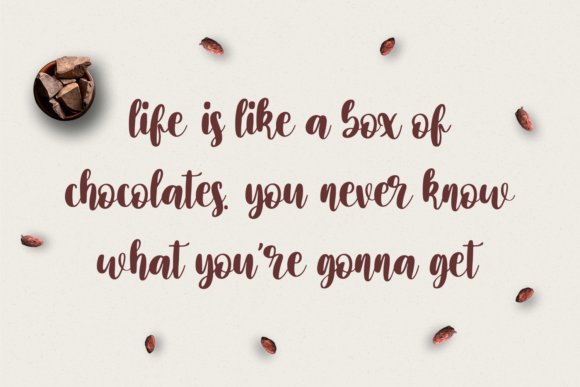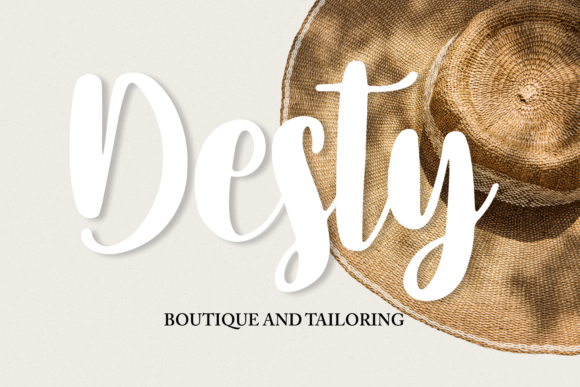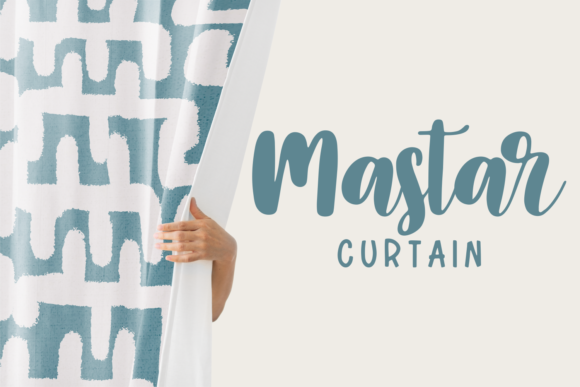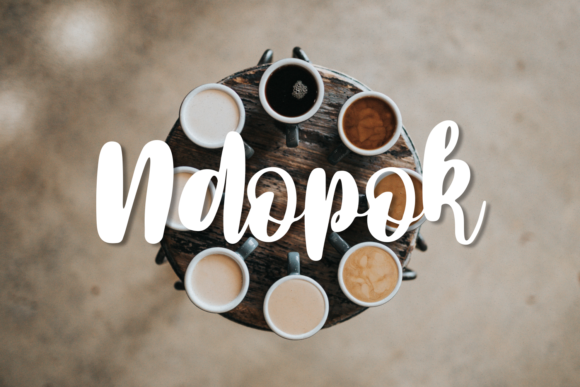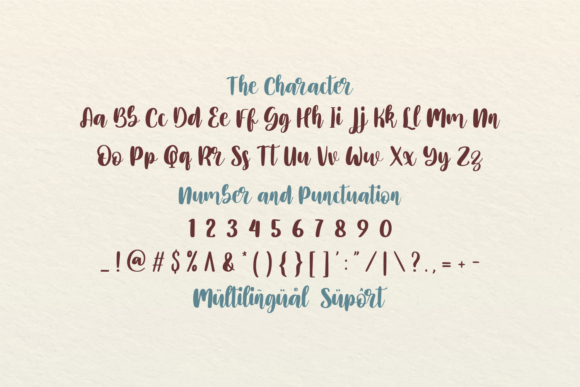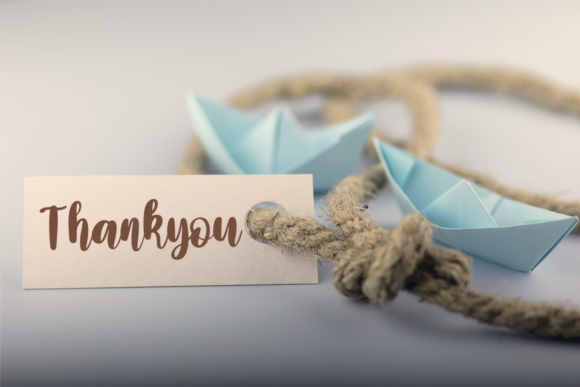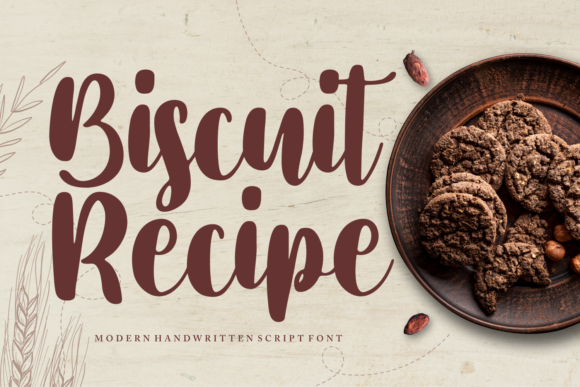
Biscuit Recipe Font: Elevate Your Designs with Elegance and Class
In the world of typography, fonts play a crucial role in conveying the tone and personality of a design. For those seeking a lovely and delicate script font that exudes elegance and class, look no further than Biscuit Recipe. This beautiful font was particularly crafted for designers and crafters who need a refreshing look to enhance their creations.
The Charm of Biscuit Recipe Font
Biscuit Recipe is a script font that boasts a unique and captivating charm. Its delicate strokes and elegant curves make it perfect for a variety of design applications, from wedding invitations and branding materials to packaging and digital media. The font’s refined appearance adds a touch of sophistication to any design, making it an excellent choice for those who want to create a lasting impression.
Key Features of Biscuit Recipe Font
- Delicate Script Style: Biscuit Recipe features a beautiful, flowing script style that adds a touch of elegance to any design.
- Unique Character Set: The font includes a wide range of characters, ensuring that you have everything you need to create stunning designs.
- Easy to Read: Despite its delicate nature, Biscuit Recipe is surprisingly easy to read, making it perfect for body text and headings.
- Highly Versatile: This font can be used for a variety of design applications, from print materials to digital media.
Biscuit Recipe is an excellent choice for designers and crafters who want to add a touch of elegance to their creations. Whether you’re working on a wedding invitation, a branding project, or a craft tutorial, this font is sure to impress. Its versatility and charm make it an excellent addition to any design toolkit.
Tips for Using Biscuit Recipe Font
- Pair with Bold Fonts: Combine Biscuit Recipe with bold fonts for a striking contrast that adds visual interest to your design.
- Use for Headings and Titles: Take advantage of the font’s elegant appearance by using it for headings and titles.
- Experiment with Colors: Try pairing Biscuit Recipe with different colors to create a unique and eye-catching design.
Where to Use Biscuit Recipe Font
Biscuit Recipe is a versatile font that can be used in a variety of design applications, including:
- Wedding Invitations and Stationery: Add a touch of elegance to your wedding invitations and stationery with Biscuit Recipe.
- Branding and Packaging: Use the font to create stunning branding materials and packaging that stands out.
- Digital Media: Take advantage of the font’s digital versatility by using it for social media graphics, blog posts, and more.
- Craft Tutorials and Patterns: Add a touch of sophistication to your craft tutorials and patterns with Biscuit Recipe.
Biscuit Recipe font is a beautiful and elegant script font that is perfect for designers and crafters seeking to add a touch of class to their creations. With its delicate strokes, unique character set, and versatility, this font is sure to become a staple in your design toolkit. Whether you’re working on a wedding invitation, branding project, or craft tutorial, Biscuit Recipe is an excellent choice for those who want to create a lasting impression.